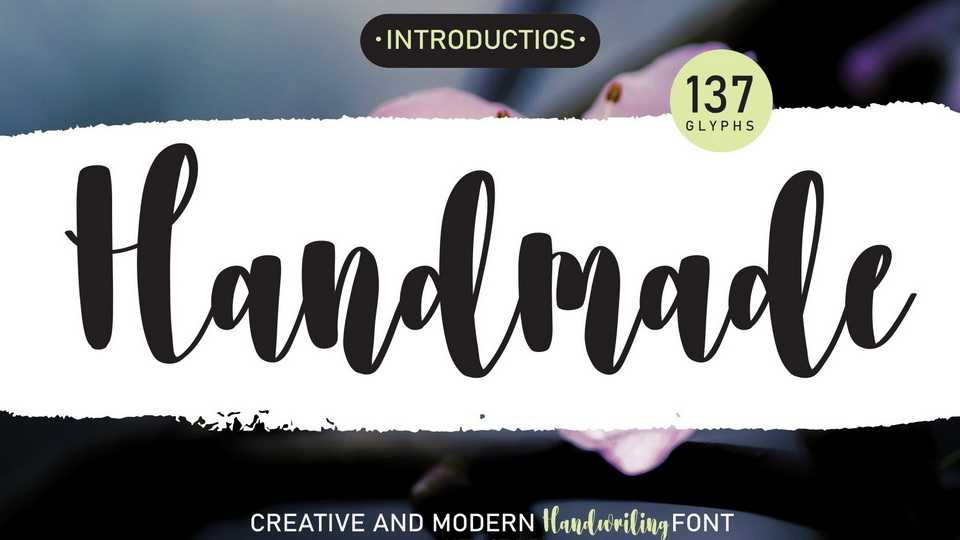
Download Handmade font, a bouncy hand painted brush typeface with a fresh and organic look. Handmade font is perfect for your creative ideas, both formal and informal.